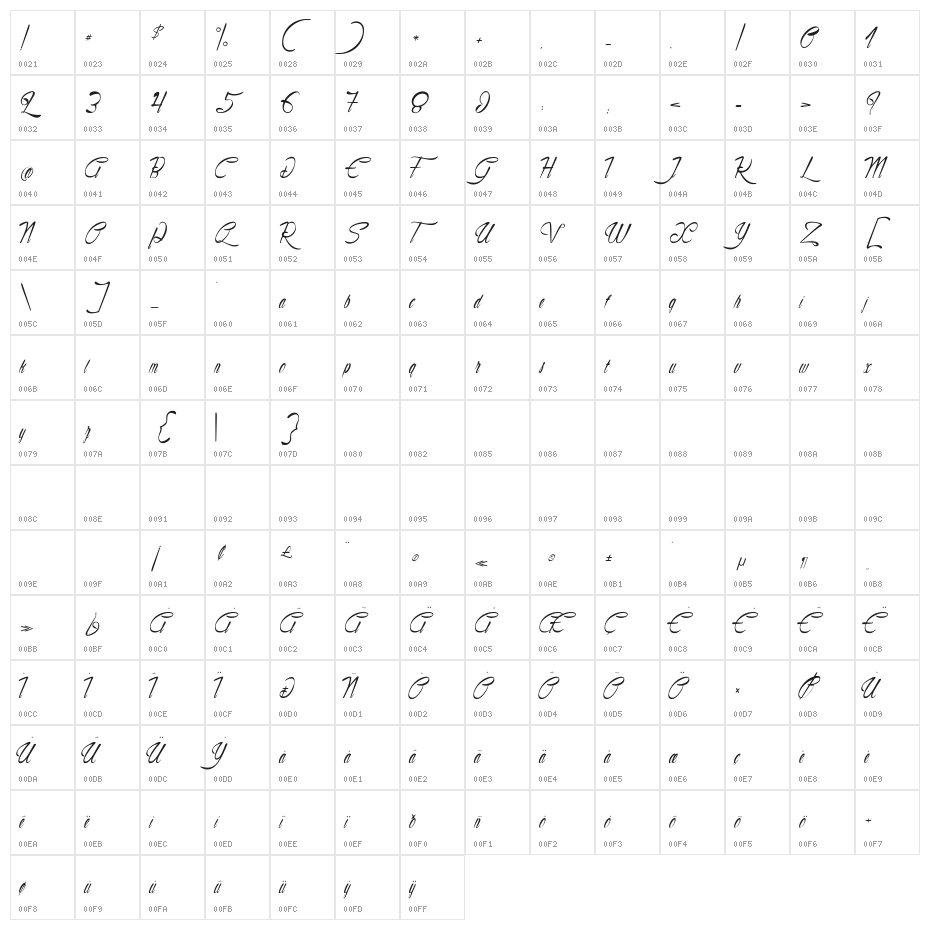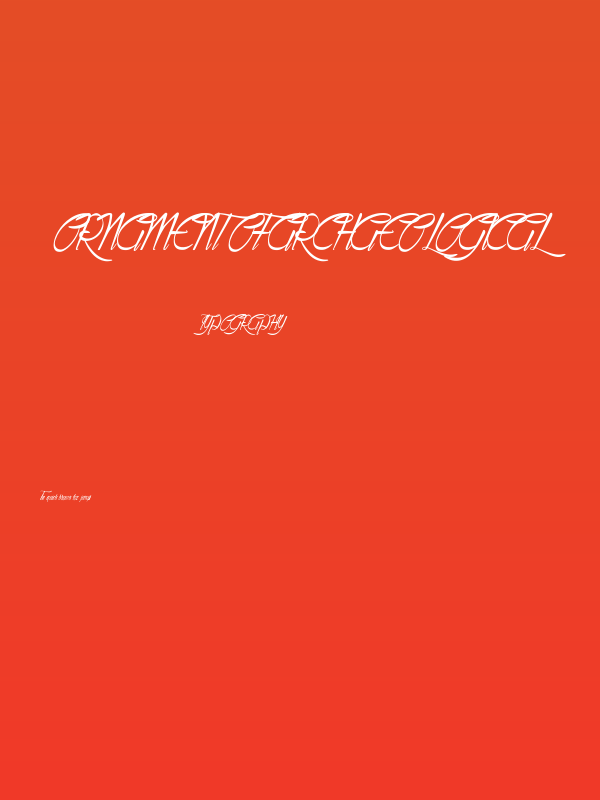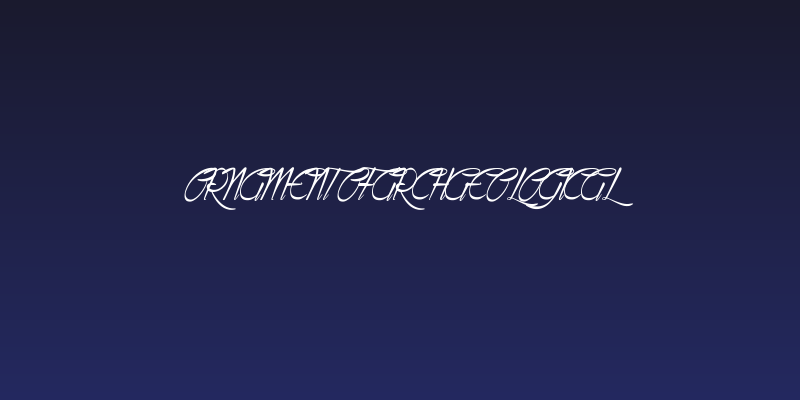
Ornament of Archaeological Font
Ornament of Archaeological Description
This font features an elegant and flowing script style, characterized by its ornate and decorative letterforms. The uppercase letters are particularly elaborate, with sweeping curves and intricate details that give a sense of sophistication and artistry. The lowercase letters maintain a consistent style, with a slightly more restrained design that complements the uppercase characters. Numbers and special characters are designed with the same attention to detail, ensuring a cohesive look across all elements. The overall appearance is reminiscent of historical calligraphy, making it suitable for projects that require a touch of classical elegance.
| Use Case | Logos, Invitations, Decorative Text |
| Proposed Projects | Ideal for wedding invitations, historical-themed designs, luxury branding, and decorative signage. |